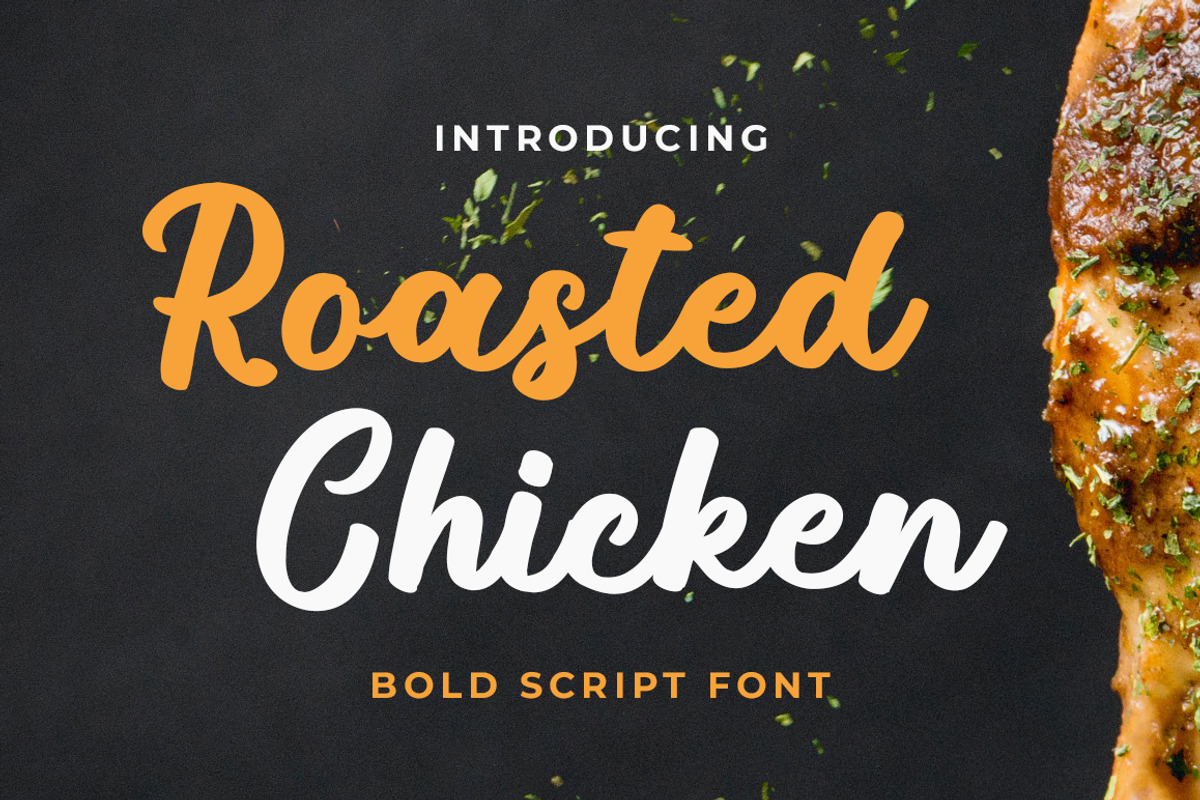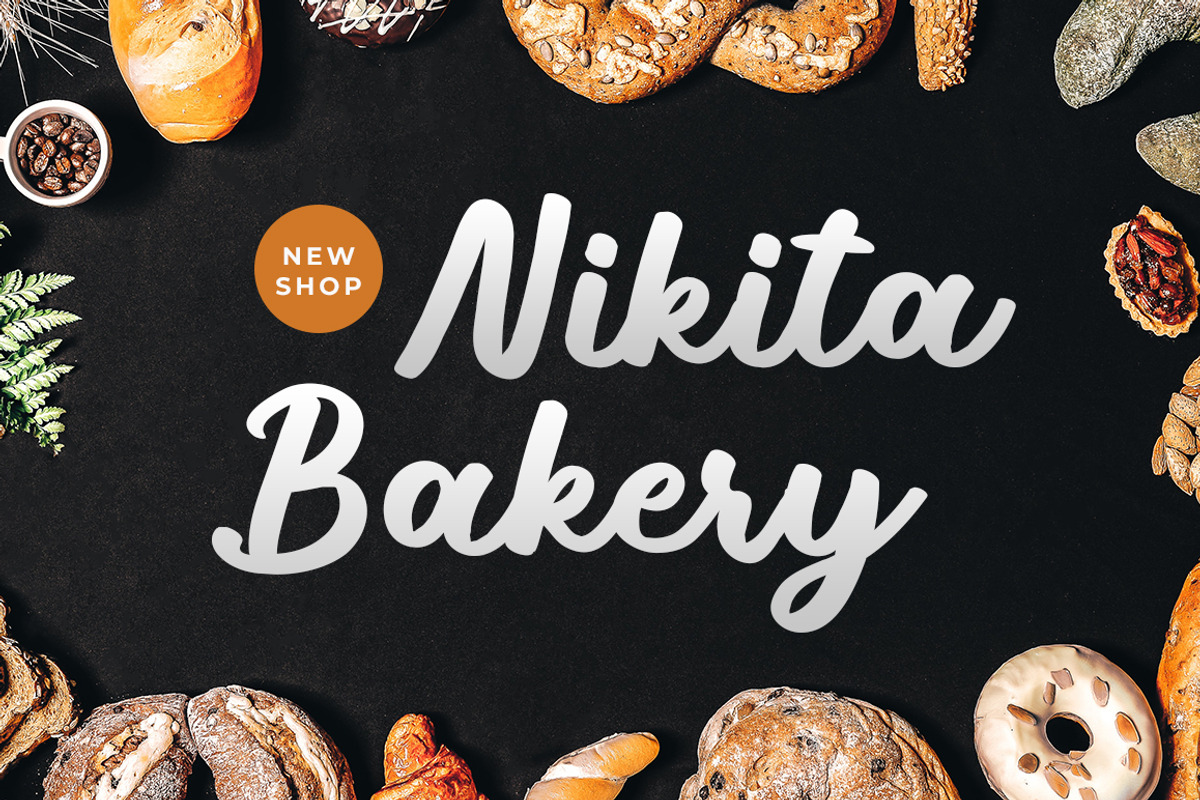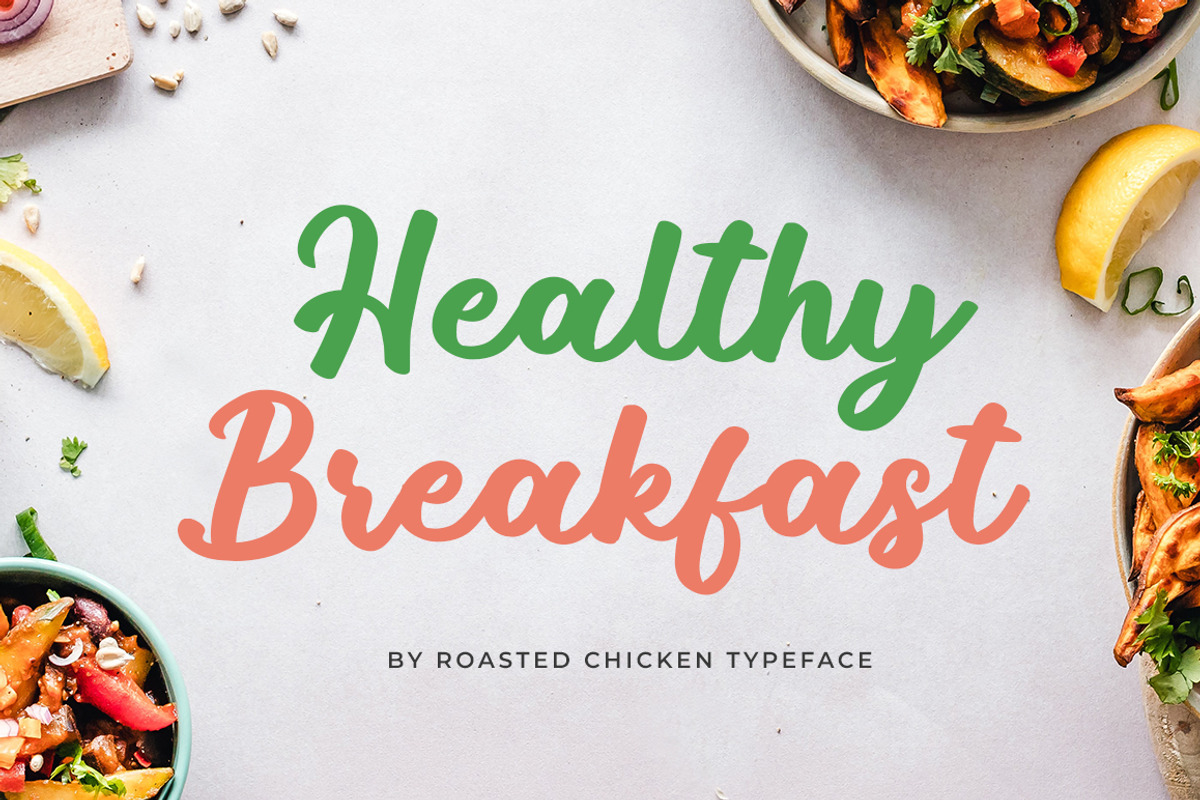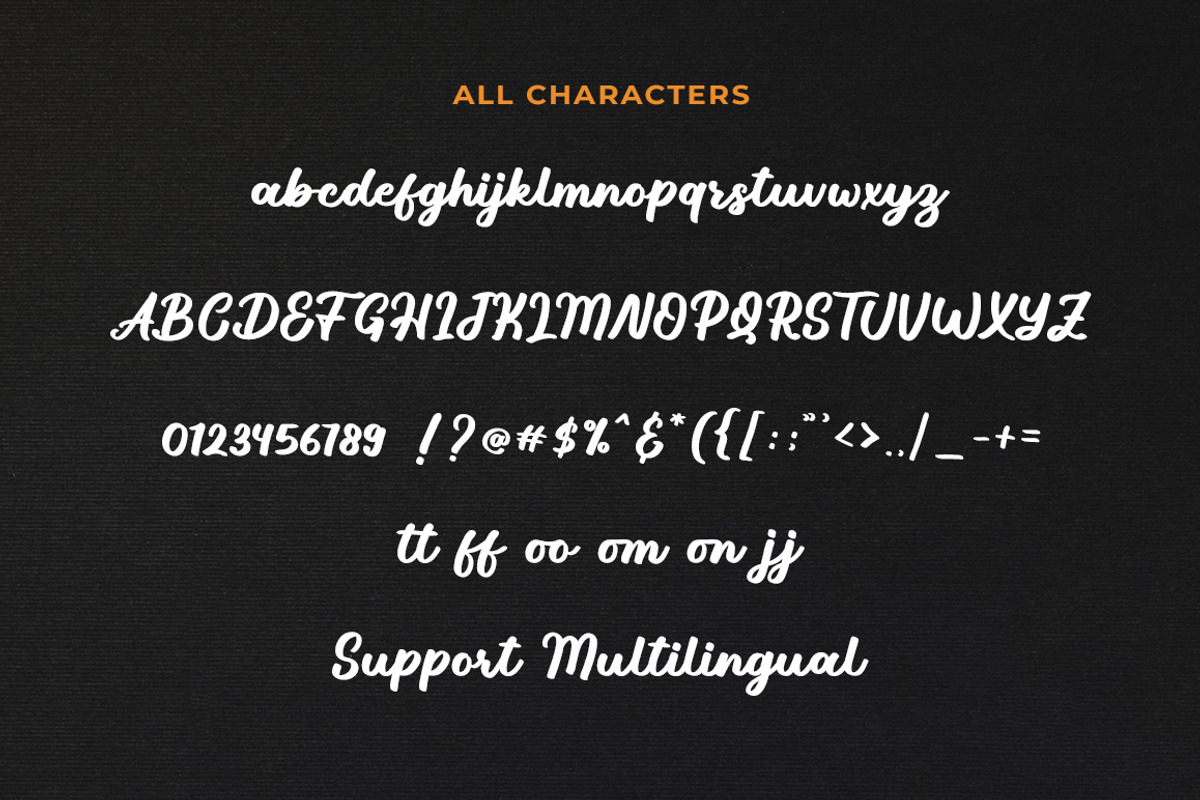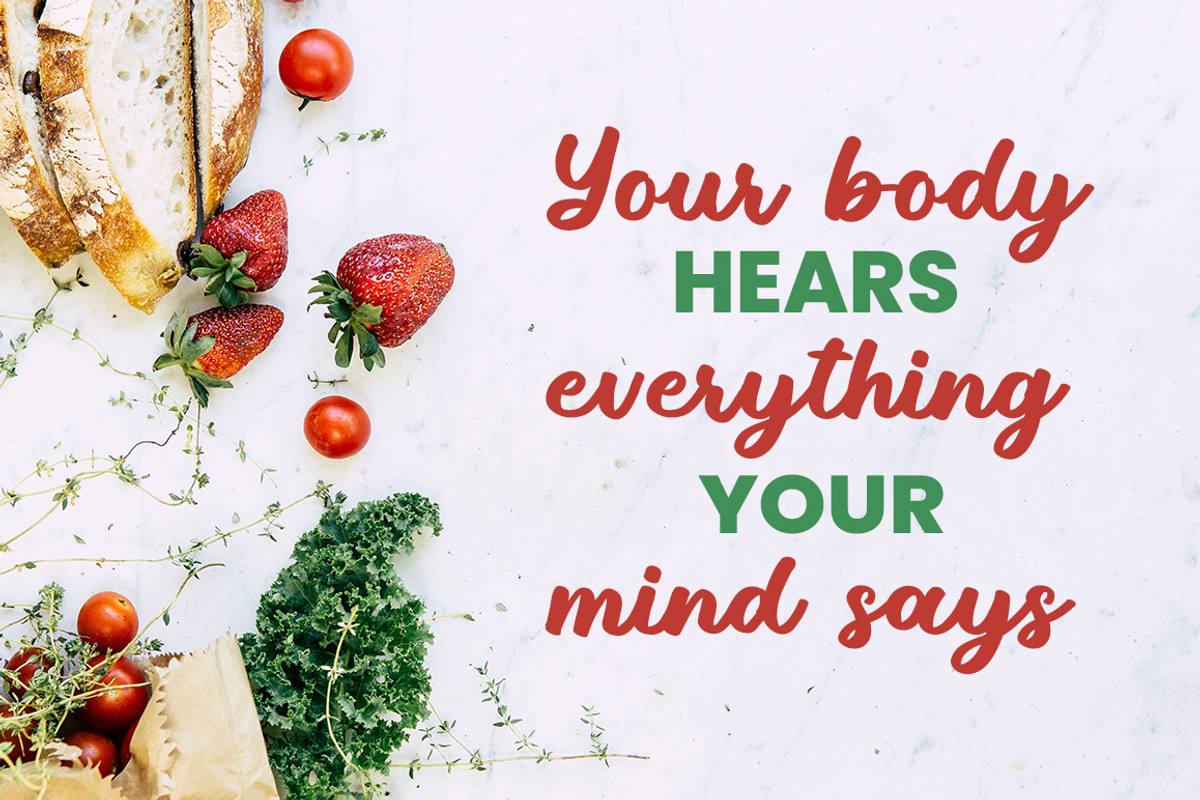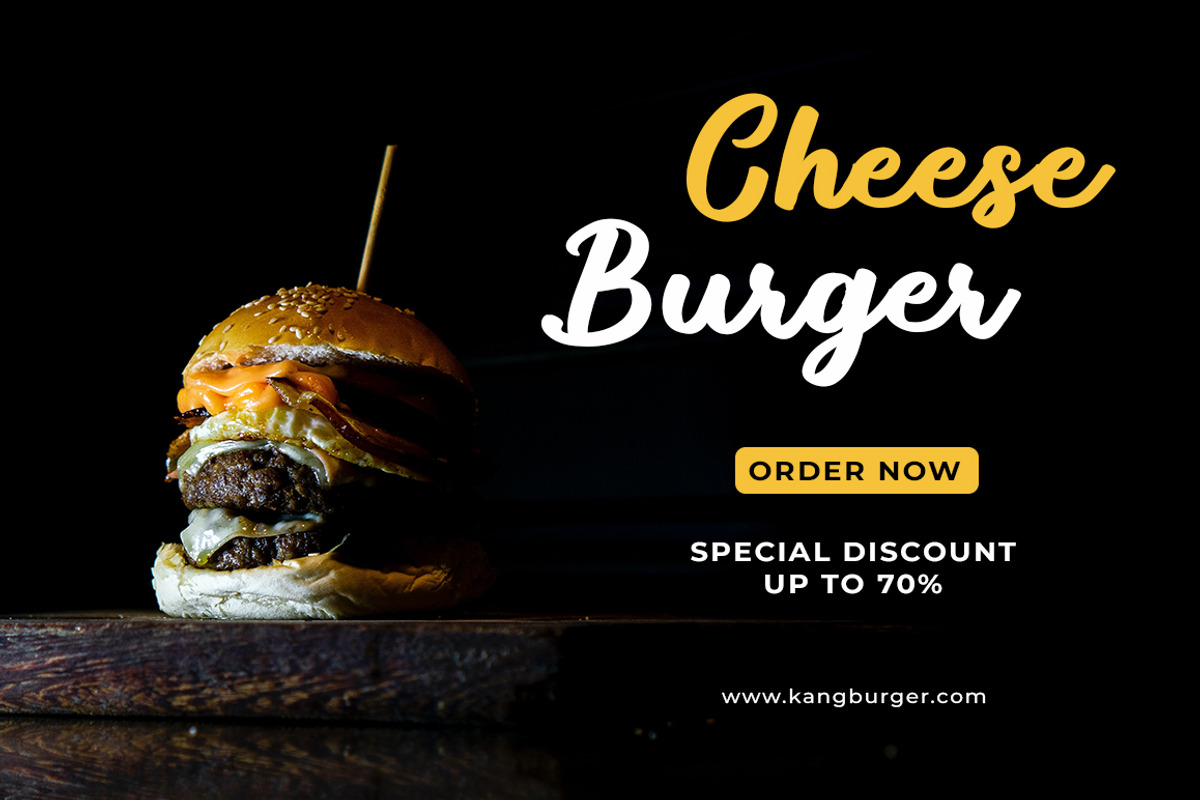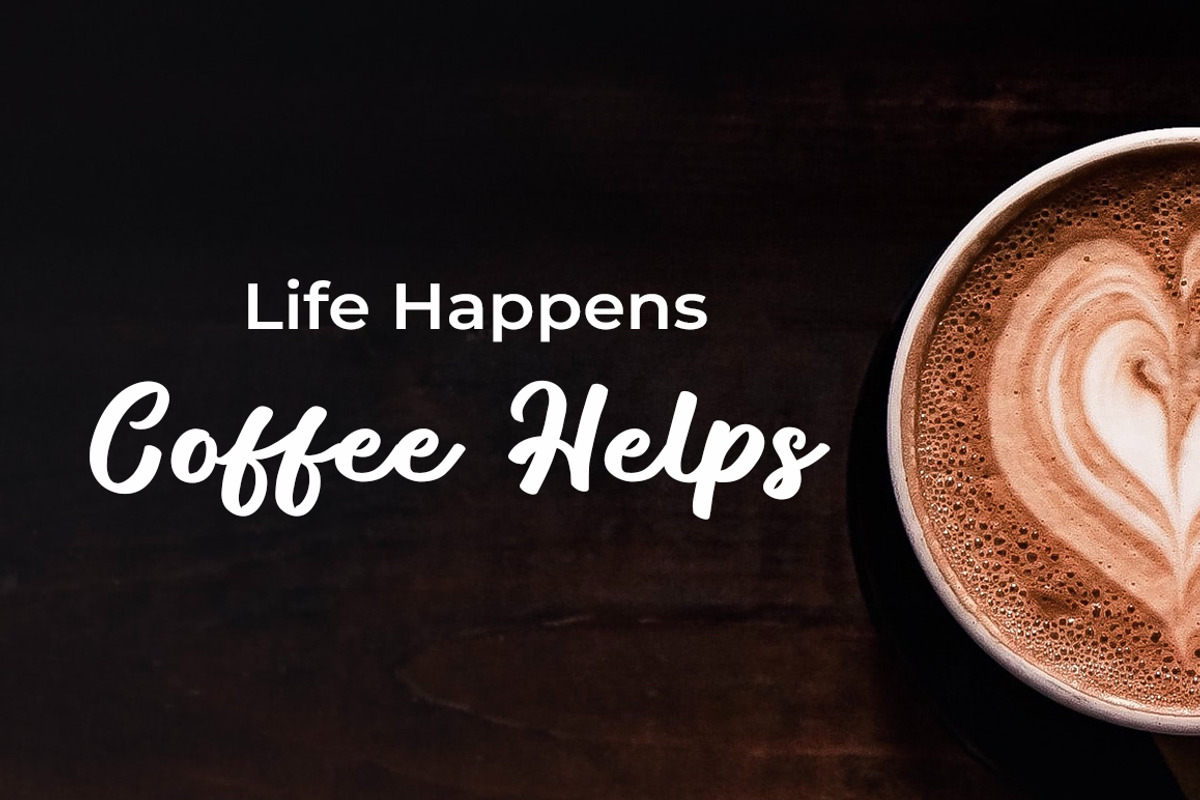
Roasted Chicken Fonts
Roasted Chicken is a fun and sweet handwritten script font. Add it to your most creative ideas, and notice how it transforms them into authentic pieces of art!
This font is suitable for t-shirt designs, logotype, branding, quotes, social media, watermarks, clothing, youtube videos.
- Stylistic Alternate
- Multilingual Support.